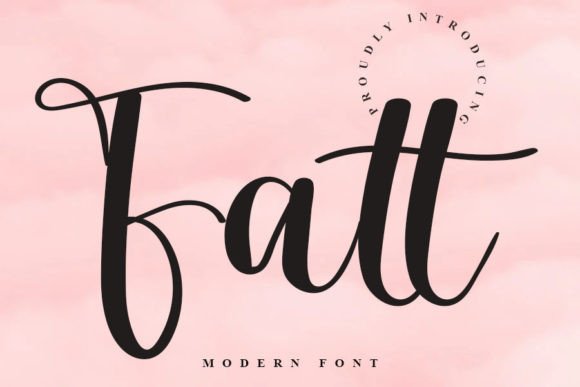
Fatt Font: The Elegant and Charming Handwritten Font for Designers and Crafters
In the world of typography, fonts play a crucial role in conveying the tone and personality of a design. For designers and crafters looking for a font that exudes elegance and charm, Fatt Font is an excellent choice. This beautiful handwritten font is perfect for a variety of design projects, including wedding invitations, thank you cards, quotes, greeting cards, logos, business cards, and more.
The Characteristics of Fatt Font
Fatt Font feels equally charming and elegant, making it an ideal choice for designs that require a touch of sophistication. Its handwritten style gives it a personal and unique feel, setting it apart from more traditional fonts. The font’s elegant curves and lines create a sense of fluidity, making it perfect for designs that require a sense of movement and flow.
Uses of Fatt Font
Fatt Font is a versatile font that can be used in a wide range of design projects, including:
- Wedding Invitations: Add a touch of elegance and romance to your wedding invitations with Fatt Font. Its beautiful, flowing script is perfect for formal and informal wedding designs.
- Thank You Cards: Express your gratitude in style with Fatt Font. Its charming and elegant design makes it perfect for thank you cards, gift tags, and other expressions of appreciation.
- Quotes: Add a touch of sophistication to your quotes and typographic designs with Fatt Font. Its elegant curves and lines create a beautiful backdrop for inspiring words and phrases.
- Greeting Cards: Create beautiful and unique greeting cards for special occasions with Fatt Font. Its handwritten style gives it a personal touch that’s sure to delight.
- Logos: Use Fatt Font to create a unique and memorable logo for your business or brand. Its elegant design makes it perfect for businesses that want to convey a sense of sophistication and style.
- Business Cards: Stand out from the crowd with Fatt Font on your business cards. Its charming and elegant design makes it perfect for professionals who want to make a great impression.
Why Designers and Crafters Love Fatt Font
Designers and crafters love Fatt Font for its unique blend of elegance and charm. Here are a few reasons why:
- Unique Design: Fatt Font has a unique and distinctive design that sets it apart from other fonts. Its handwritten style gives it a personal touch that’s hard to find in more traditional fonts.
- Versatility: Fatt Font is incredibly versatile, making it perfect for a wide range of design projects. Whether you’re creating wedding invitations or business cards, Fatt Font is a great choice.
- Elegance: Fatt Font exudes elegance and sophistication, making it perfect for designs that require a touch of refinement.
Tips for Using Fatt Font
Here are a few tips for using Fatt Font in your designs:
- Pair it with Other Fonts: Fatt Font pairs well with other fonts, especially those with a more traditional or serif design. Experiment with different font combinations to find the perfect look for your design.
- Use it for Headlines: Fatt Font is perfect for headlines and titles, where its elegant curves and lines can really shine.
- Add a Personal Touch: Fatt Font’s handwritten style gives it a personal touch that’s perfect for designs that require a sense of warmth and personality.
In conclusion, Fatt Font is a beautiful and elegant handwritten font that’s perfect for designers and crafters looking to add a touch of sophistication to their designs. Its unique blend of charm and elegance makes it perfect for a wide range of design projects, from wedding invitations to business cards. With its versatility, elegance, and unique design, Fatt Font is a great choice for anyone looking to create stunning and memorable designs.